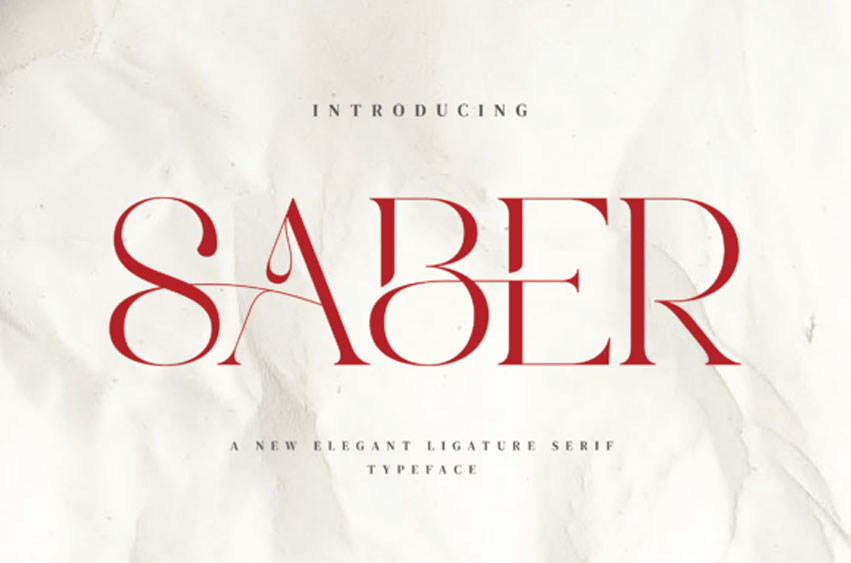
Saber Font
Saber Font Stylish Ligature Typeface, inspired by the famous minimalist logo perfect for designing templates, brochures, videos, advertising branding, logos, and more.
This font is here to enhance the quality of your designs.